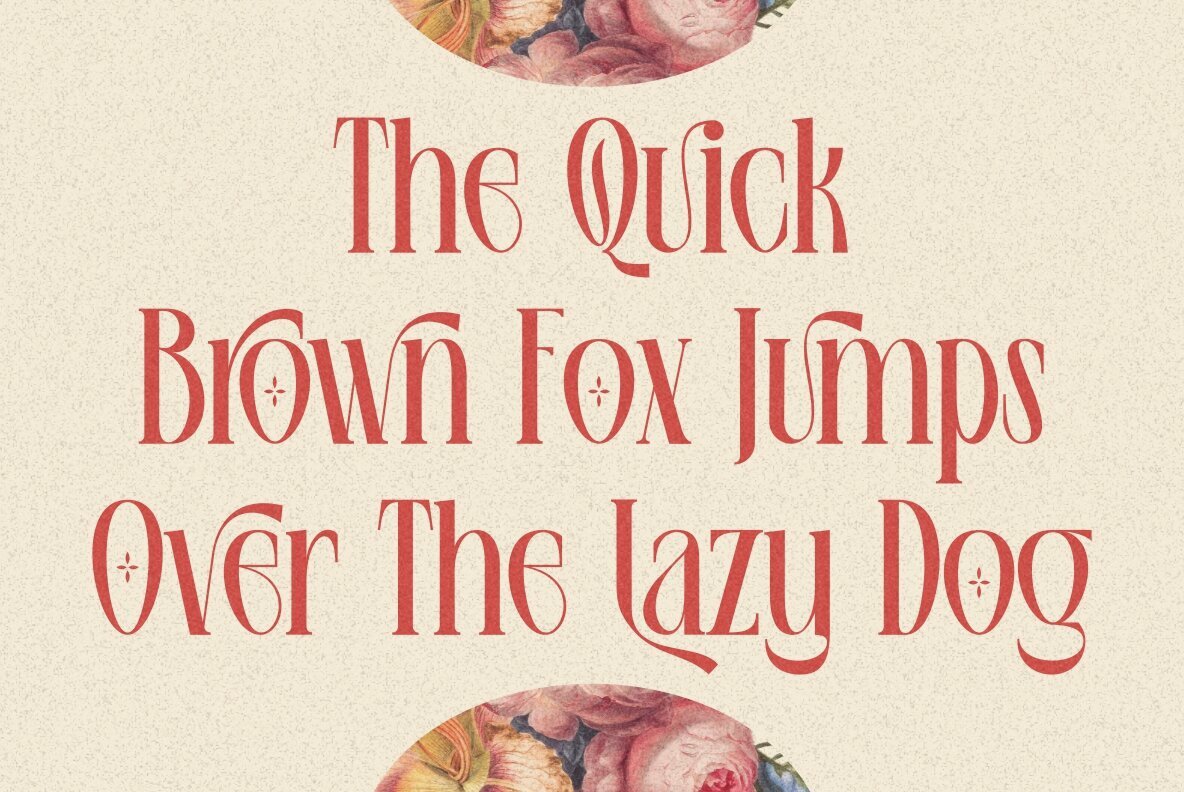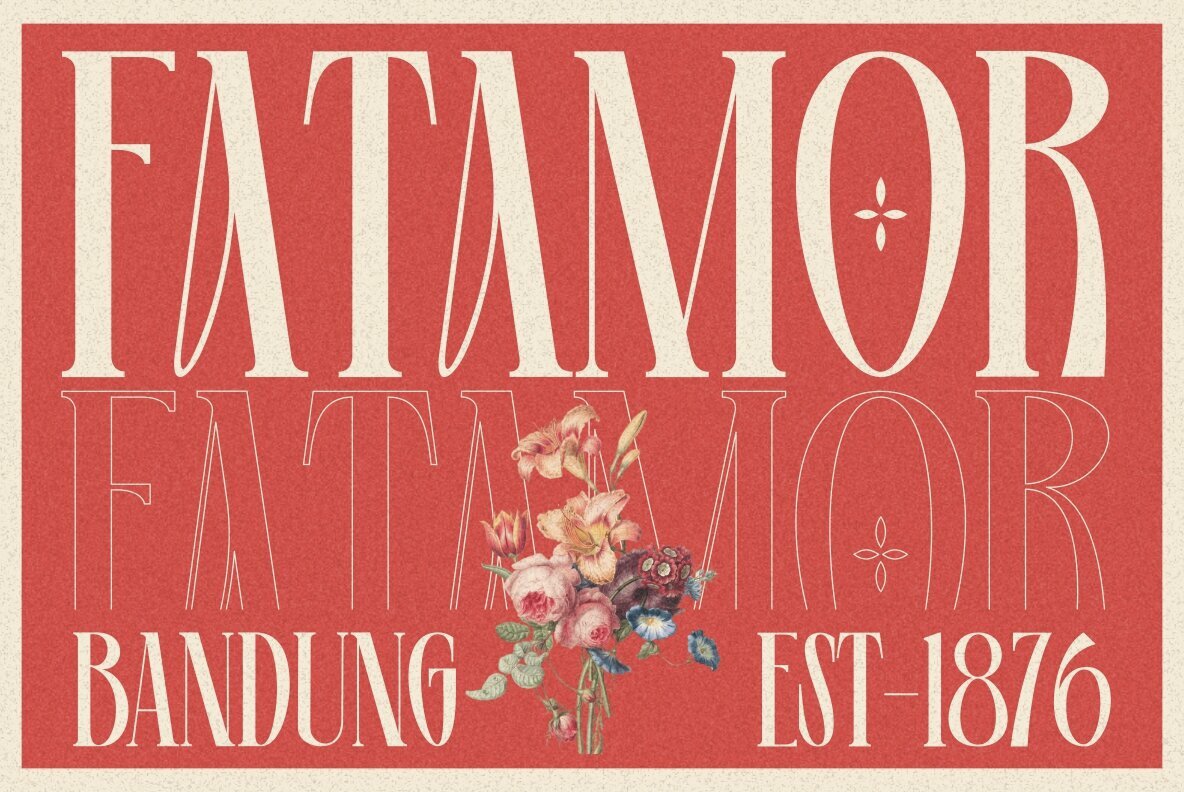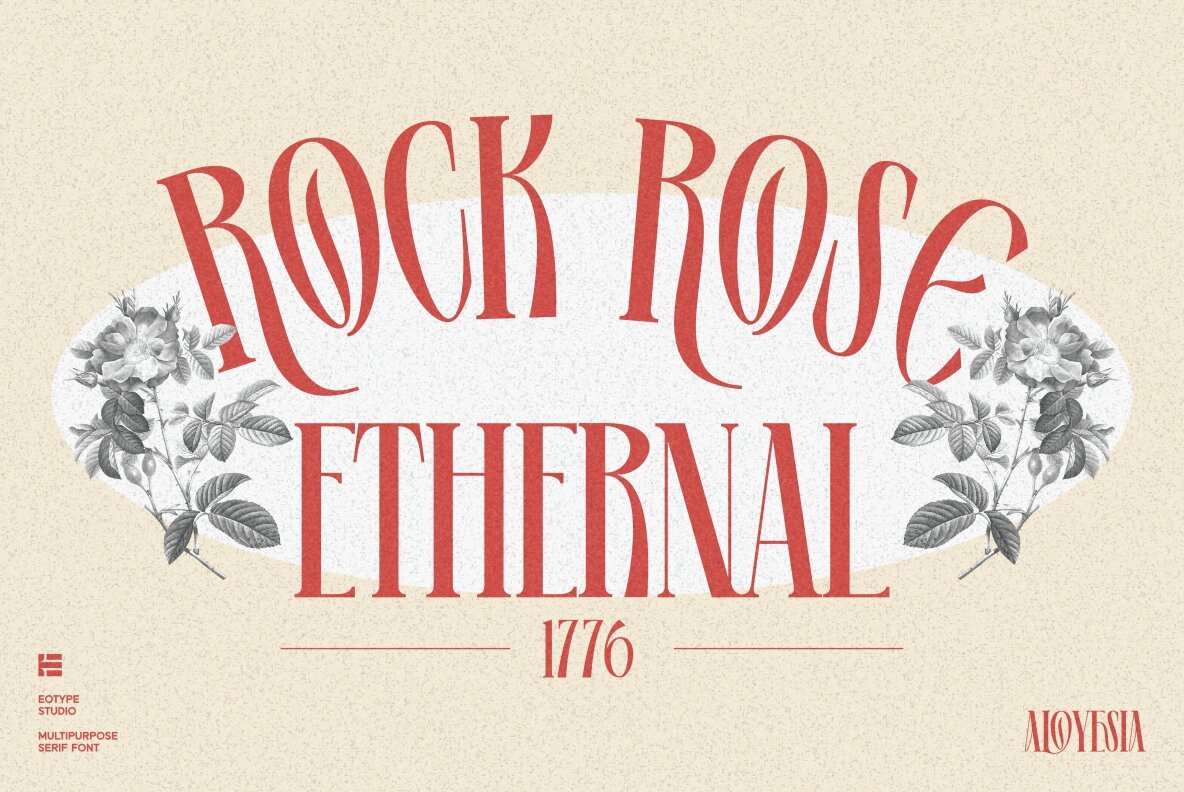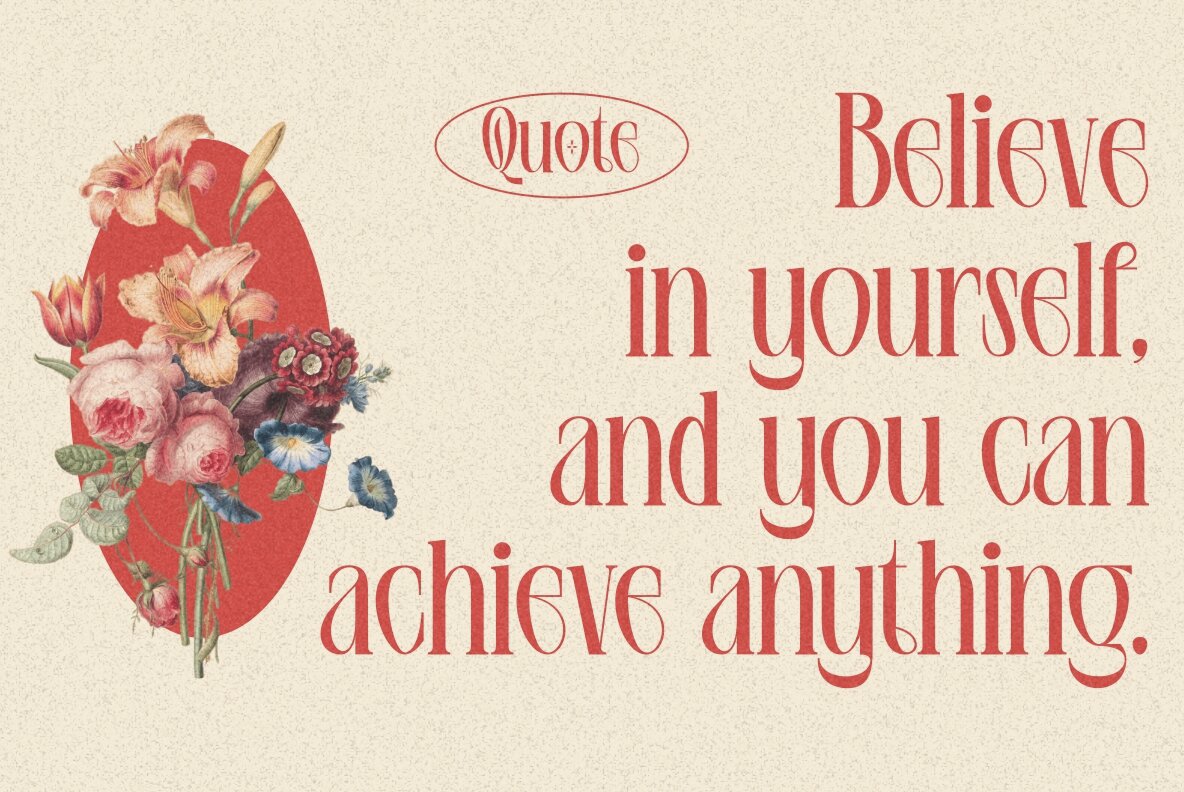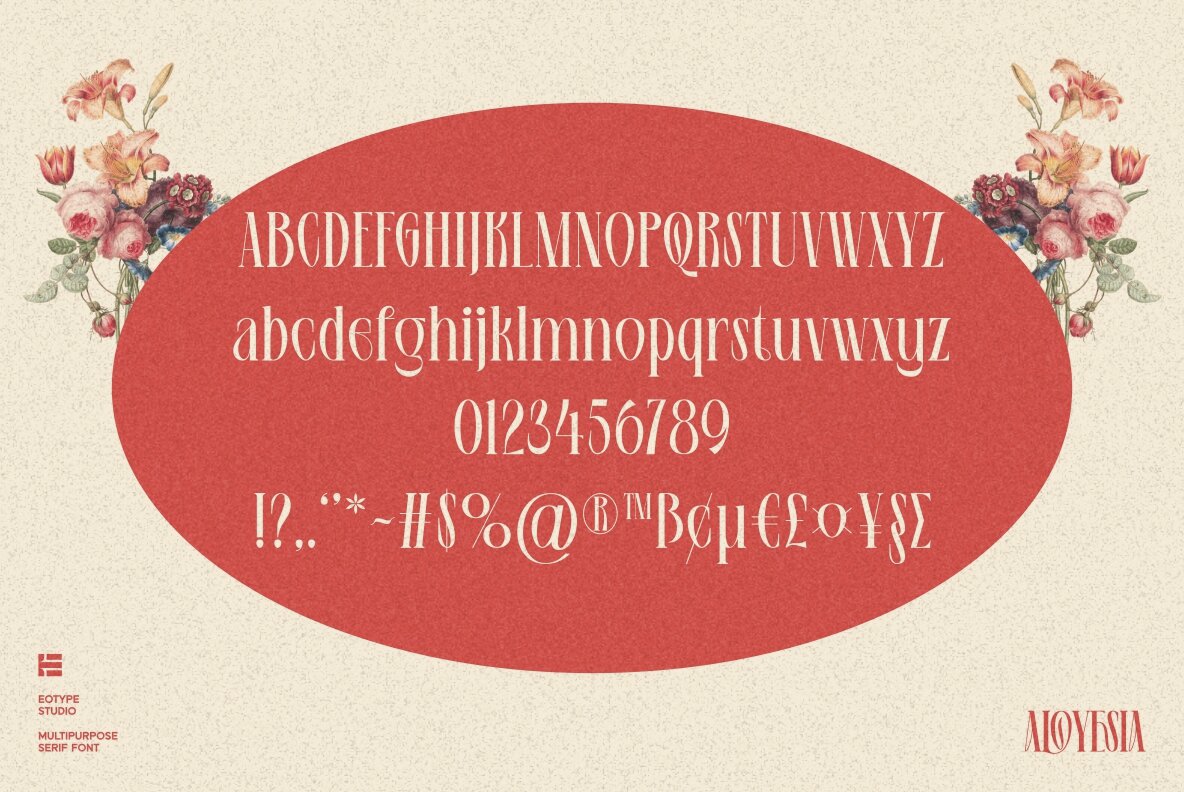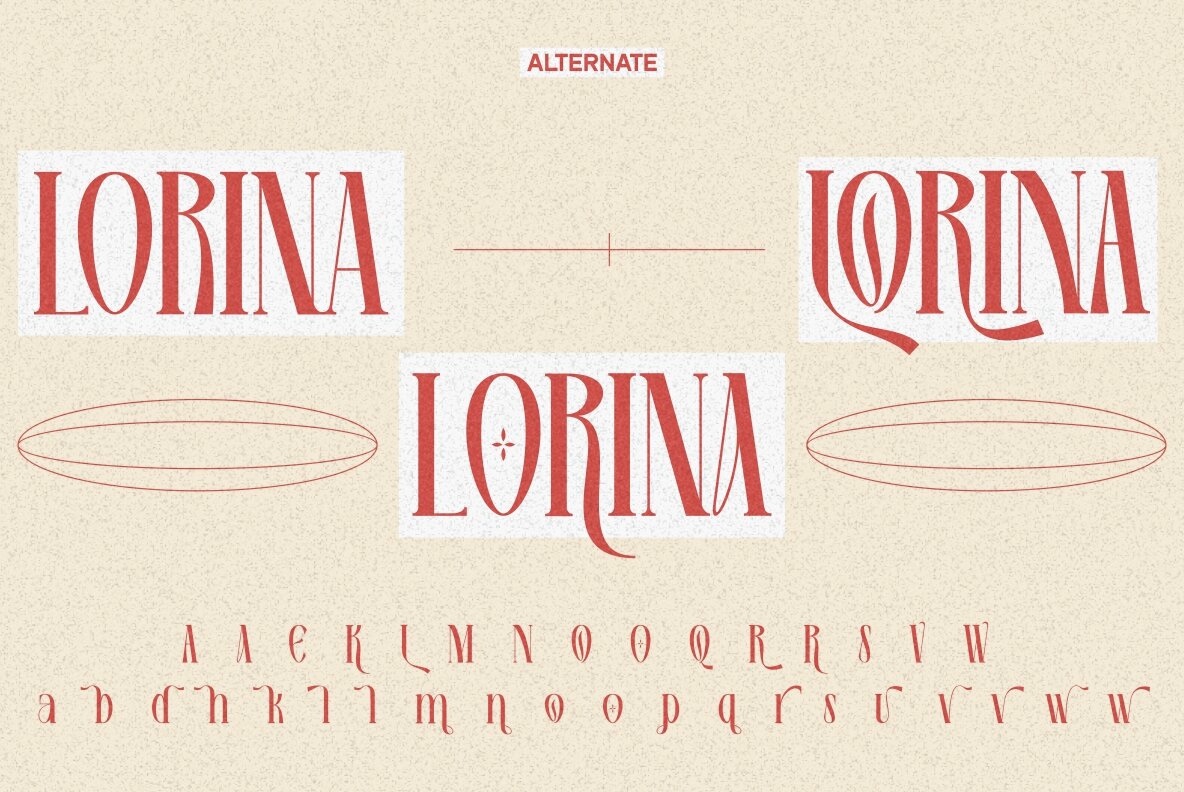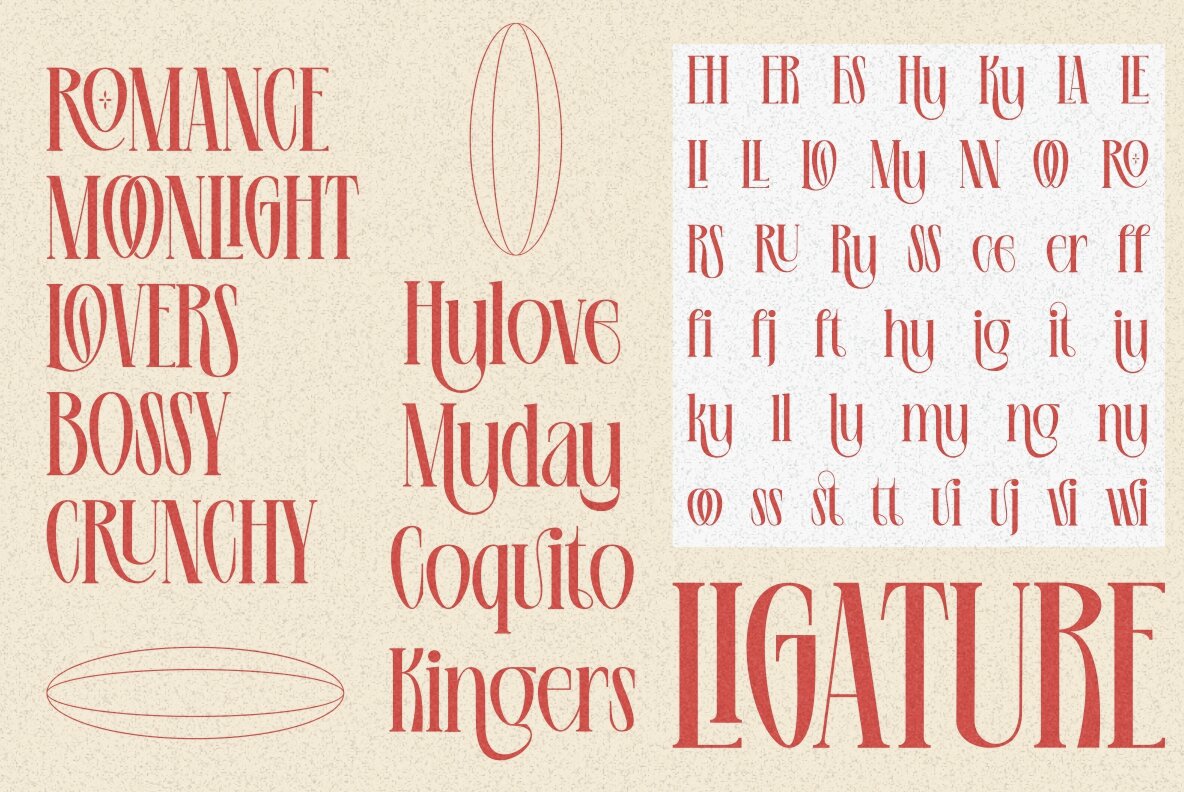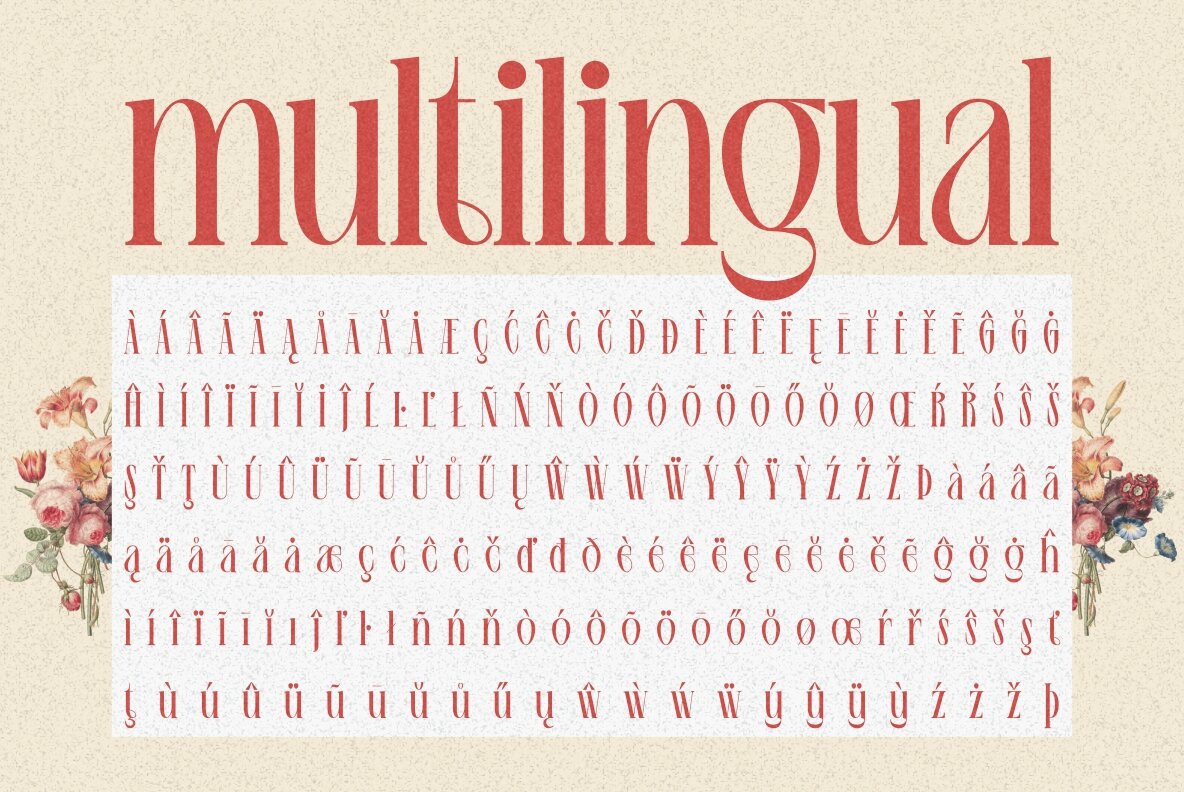
Aloyesia Font
Aloyesia Regular
Aloyesia is a condensed serif display font that has beautiful curves. This unique font is perfect for creating beautiful logotypes, stunning magazine designs and more. Aloyesia provides a collection of glyphs with unique shapes. With alternative styles and ligature features, this font is perfect for complementing various projects.